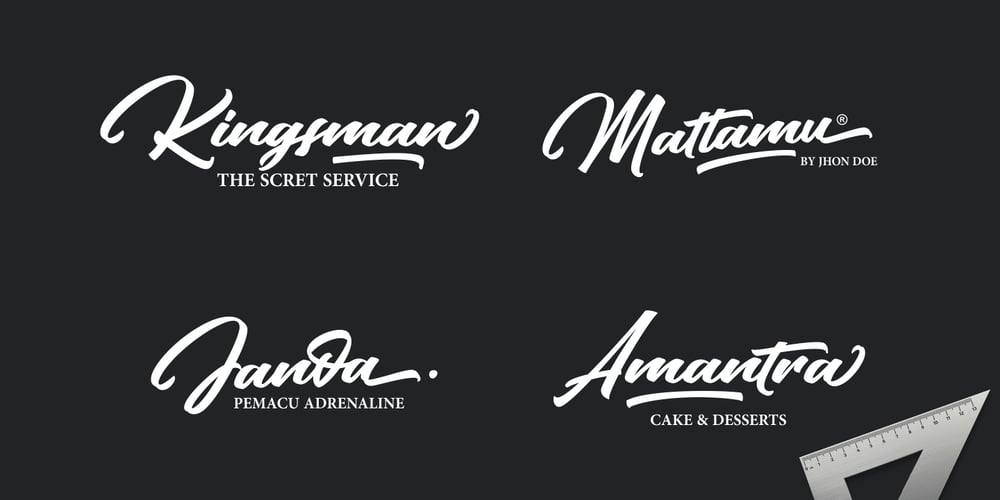
Handler Font Family was designed by Adil Budianto and published by Surotype. Handler contains 1 styles and family package options. Handler a signature typeface great for Logotype, Poster, Digital Lettering Arts, Clean Design, Branding Design, Signs,and more. To enable the OpenType Stylistic alternates, you need a program that supports OpenType features such as Adobe Illustrator CS, Adobe Indesign & CorelDraw X6-X7 and more.